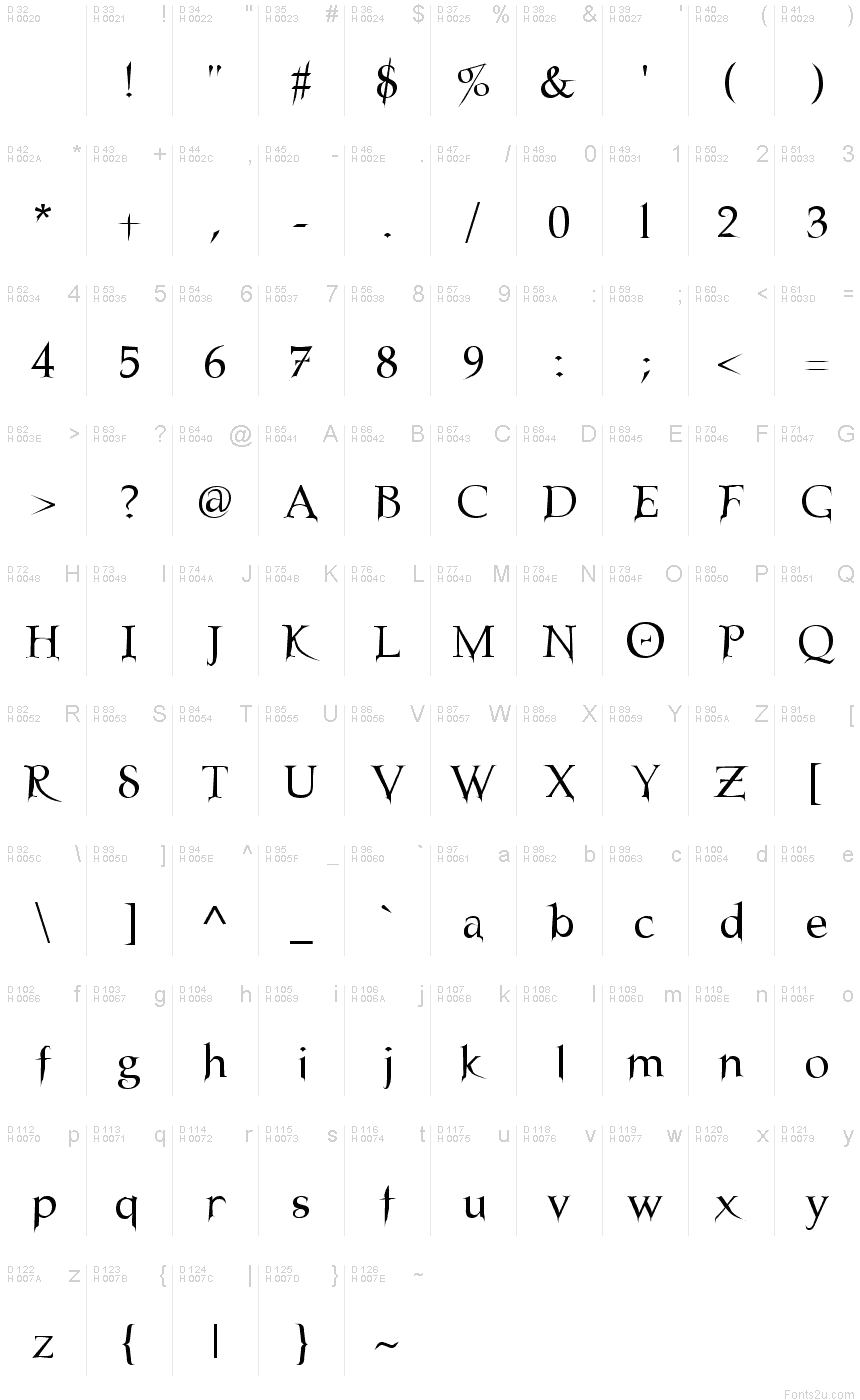
Nosferatu Regular
Nosferatu font by Nosferatu, Eric Oehler is a free Nosferatu-inspired display font with tall serif forms and sharp, pointed cuts that give the letters a gothic edge. The shapes stay refined rather than messy, with long hairline strokes and narrow serifs that echo old horror title lettering.
Nosferatu works well for horror posters, film titles, book covers, Halloween invitations, event flyers, and themed logos where a dramatic serif treatment fits the subject. This free font also suits opening credits, mastheads, and dark decorative captions because its sharp details carry the Nosferatu mood without needing extra ornament.